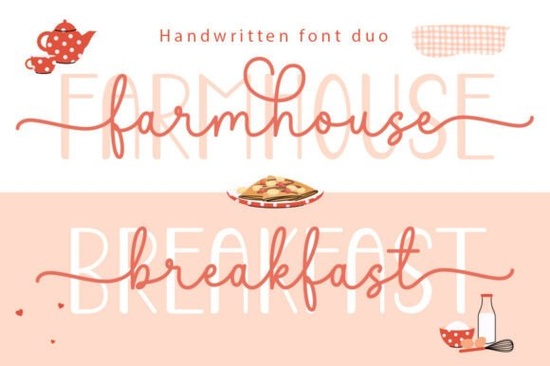
If you're looking for a friendly, versatile handwritten font duo that works just as well on a rustic recipe card as it does on a modern farmhouse wall print, the Farmhouse Breakfast Duo Font is worth your time. It’s not overly ornate or fussy just two thoughtfully designed typefaces: a relaxed, natural-looking script and a clean, legible sans serif. Together, they give you room to express warmth and clarity in the same layout, without needing extra design tricks or workarounds.
What makes this font duo different from other script fonts?
Many handwritten fonts lean too far into either “cute” or “formal,” making them hard to pair or scale across projects. Farmhouse Breakfast avoids that by keeping stroke weight consistent and giving each letter a gentle, organic rhythm not rigid, not chaotic. You’ll notice how smoothly the script flows into the sans serif, especially when layering headlines and body text. That balance is why it’s become a quiet favorite among small-batch food brand owners and wedding stationery designers alike.
It’s also PUA-encoded, which means all the alternate characters, swashes, and ligatures show up right where you expect them no digging through character maps or installing extra files. If you’ve ever spent 20 minutes hunting for a single stylistic “a” in another font, you’ll appreciate how straightforward this one is to use.
Where do people actually use Farmhouse Breakfast?
Real users not stock photo models are applying this font in practical, everyday ways:
- Recipe books and printable meal planners, where readability matters but personality shouldn’t be sacrificed
- Farmhouse-style wall art and framed quotes, especially with neutral palettes and natural textures like linen or wood grain
- Small business branding for bakeries, coffee shops, or local farms think chalkboard signs, packaging labels, and social media graphics
- Invitation suites, where the script adds charm for names and dates, while the sans serif keeps details (times, addresses, RSVP info) easy to scan
How does it compare to other popular script fonts?
Farmhouse Breakfast sits comfortably between highly decorative display fonts and ultra-minimalist sans serifs. It doesn’t try to be everything at once instead, it focuses on doing two things well: helping words feel personal, and staying legible at smaller sizes. That’s why it’s often chosen over flashier options for print-on-demand products like mugs, tea towels, or greeting cards, where clarity and charm both matter.
Unlike some trending script fonts that rely heavily on dramatic flourishes, this one uses subtlety: slight variations in letter height, soft entry/exit strokes, and spacing that feels intentional rather than automated. That attention shows up most clearly when you’re pairing it with photography or hand-drawn illustrations it doesn’t compete, it complements.
Who is this font really for?
It’s ideal if you’re:
- A small business owner designing your own product labels or Instagram posts
- A crafter making printable planner pages or SVG cut files for Cricut or Silhouette
- A designer building brand assets for a client who wants “approachable but polished”
- A hobbyist putting together a family recipe book or holiday card set
It’s less suited for high-tech interfaces or dense editorial layouts but that’s not its purpose. Its strength is in human-scale communication: notes, gifts, signage, and stories told slowly.